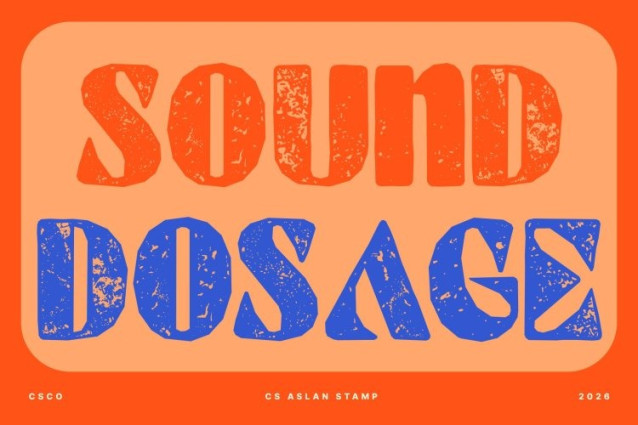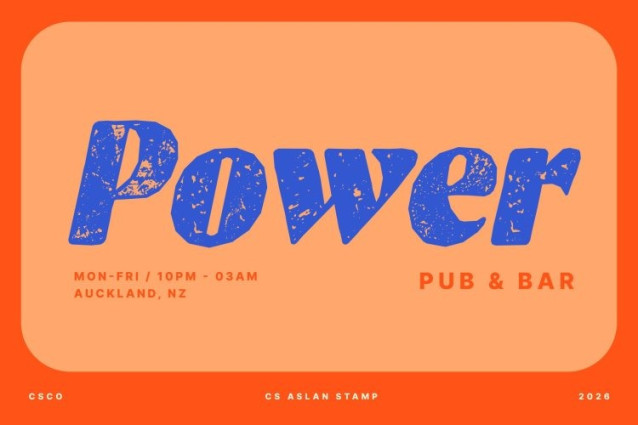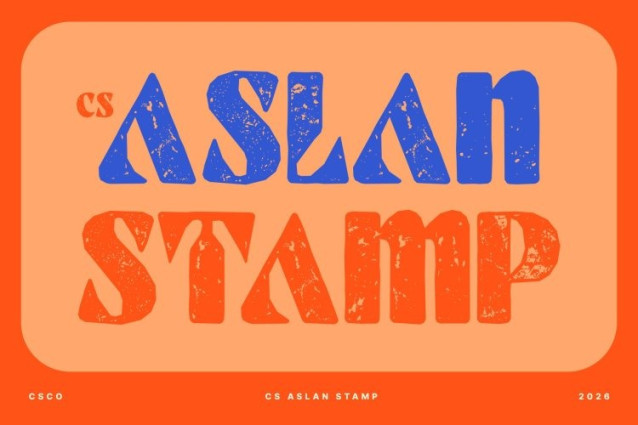
CS Aslan Stamp Font This is a bold modern sans serif font built with strong, confident letterforms and refined detailing. It blends the solidity of classic sans serif construction with a clean, contemporary finish, resulting in typography that feels powerful, polished, and visually authoritative.
Elegance Built with Authority
The strength of lies in its balance between boldness and sophistication. Its firm strokes, sharp edges, and carefully tuned proportions create a commanding presence without sacrificing elegance. This makes it an excellent choice for designs that aim to communicate credibility, professionalism, and modern luxury.
Stamped Texture for Authentic Character
The stamped style introduces a rough, uneven texture that adds depth and authenticity to the bold structure. This subtle distressing gives the font a vintage-inspired, tactile feel bringing warmth and character to its otherwise clean and confident form. The result is a typeface that feels strong yet human, refined yet expressive.
Versatile Across Premium Applications
Ideal for branding, editorials, advertising, packaging, and luxury print or digital projects, this font offers exceptional versatility. Its combination of structural strength, elegant proportions, and stamped texture ensures lasting relevance across trends making it a reliable choice for premium and authentic visual identities.